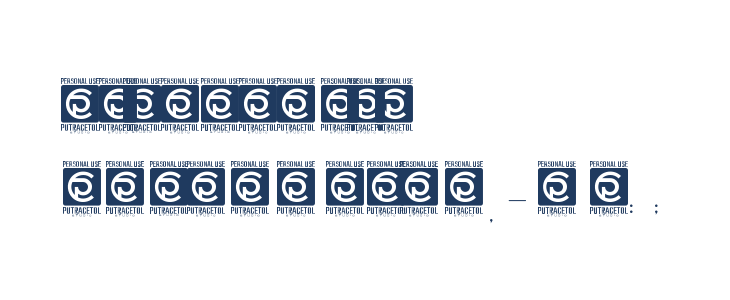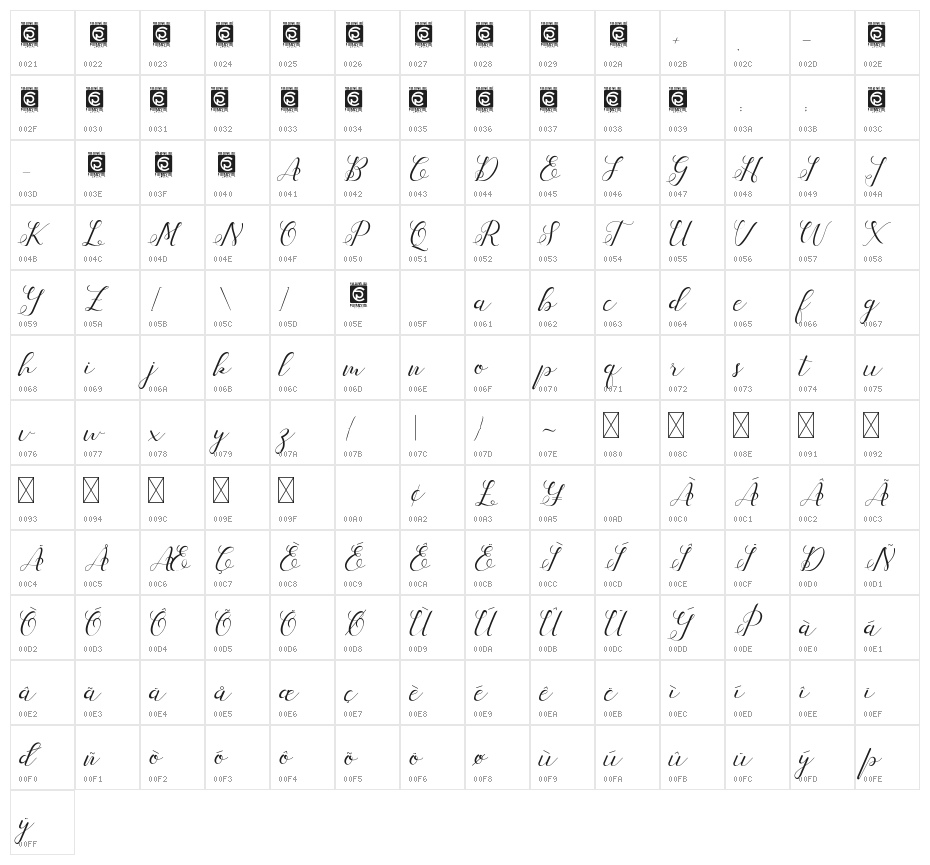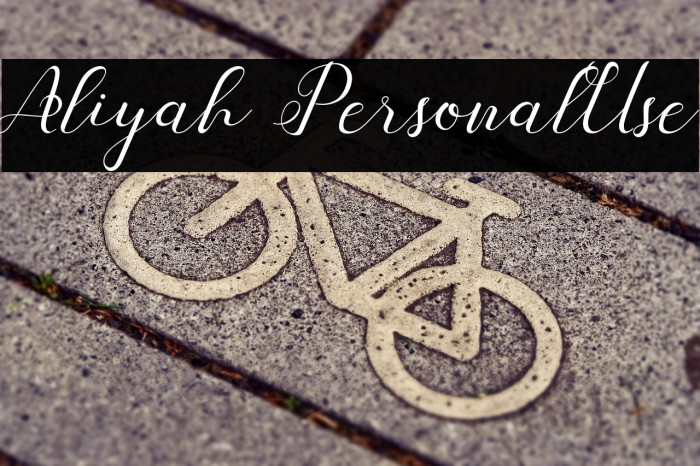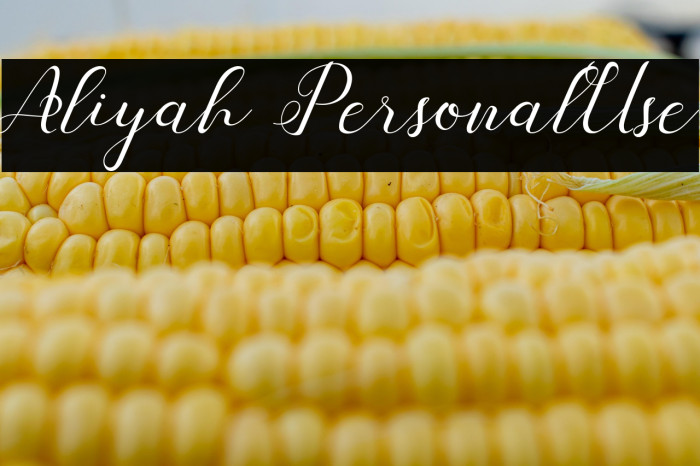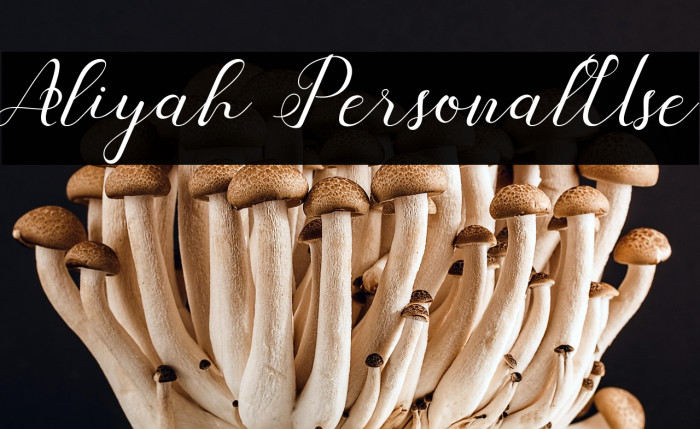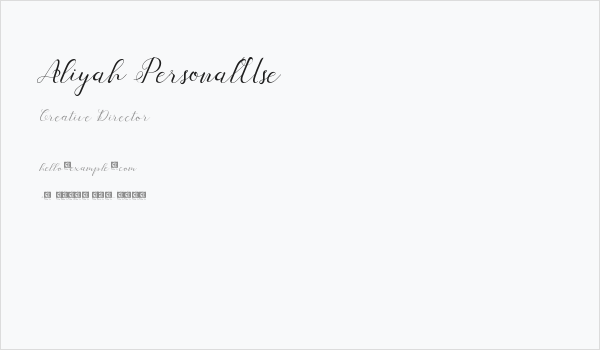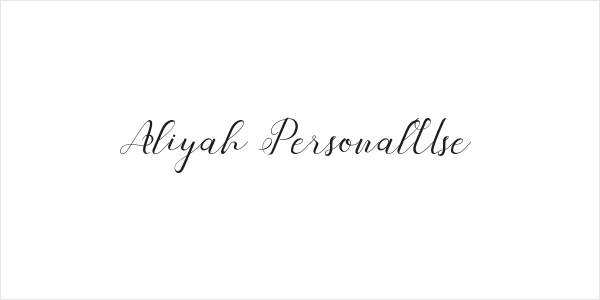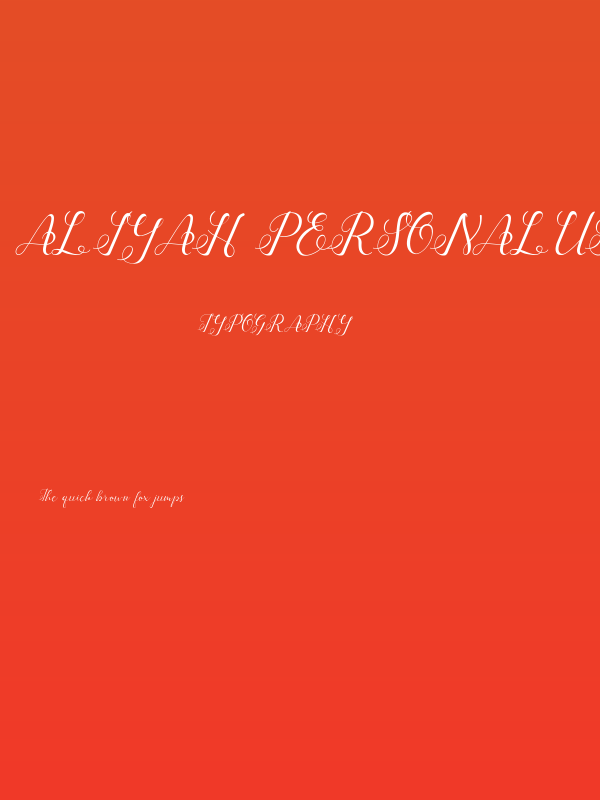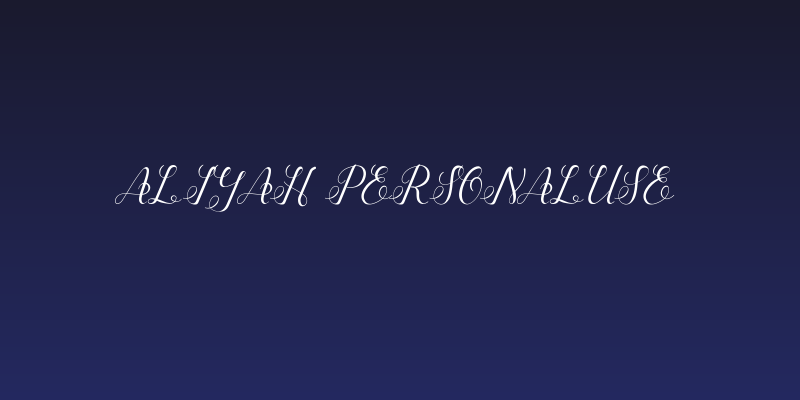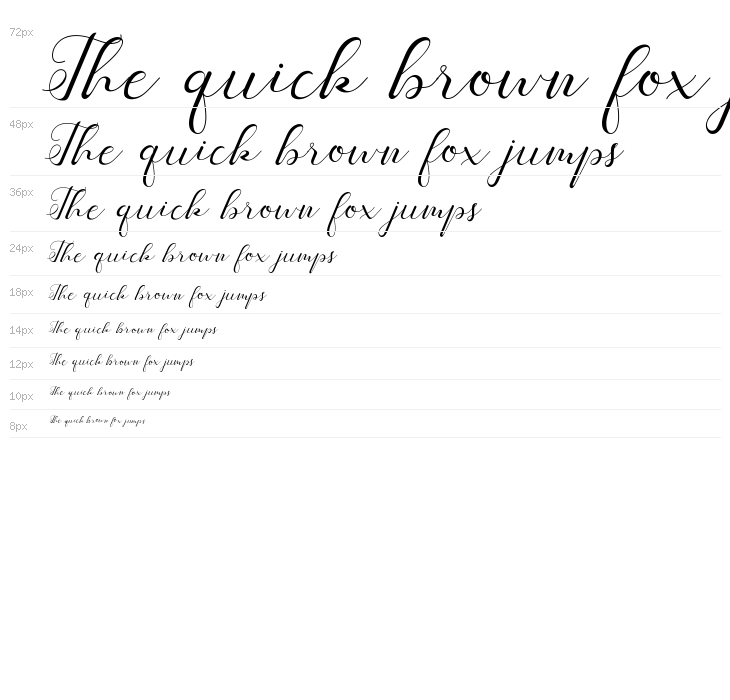
Aliyah PersonalUse Font
Aliyah PersonalUse Description
This elegant script font features a flowing, cursive style with intricate loops and swashes, giving it a sophisticated and artistic appearance. The uppercase letters are particularly ornate, with elaborate flourishes that add a touch of grandeur. The lowercase letters maintain a consistent flow, complementing the uppercase with their graceful curves. The font's overall design is reminiscent of traditional calligraphy, making it suitable for formal and decorative applications. The characters are well-spaced, ensuring readability while maintaining an artistic flair. This font is perfect for projects that require a touch of elegance and style.
Use CaseLogos, Headlines, Invitations
Proposed ProjectsWedding invitations, luxury branding, elegant stationery, and decorative certificates.